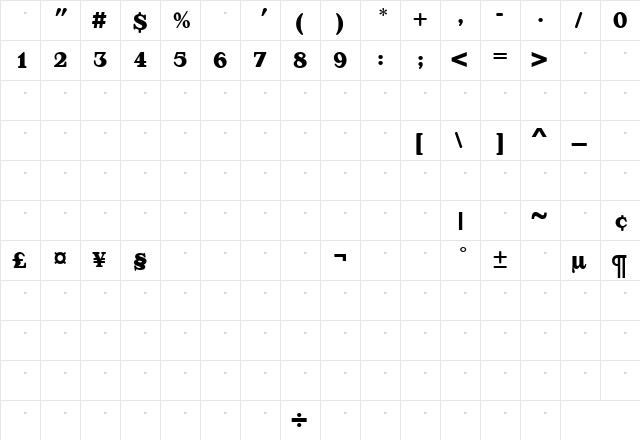
AppleyardBoldTab Medium
Design Context for AppleyardBoldTab Typeface
AppleyardBoldTab is a composed and adaptable typeface that performs quietly and consistently across a wide range of design contexts. Its bold stroke weight gives it real presence on the page.